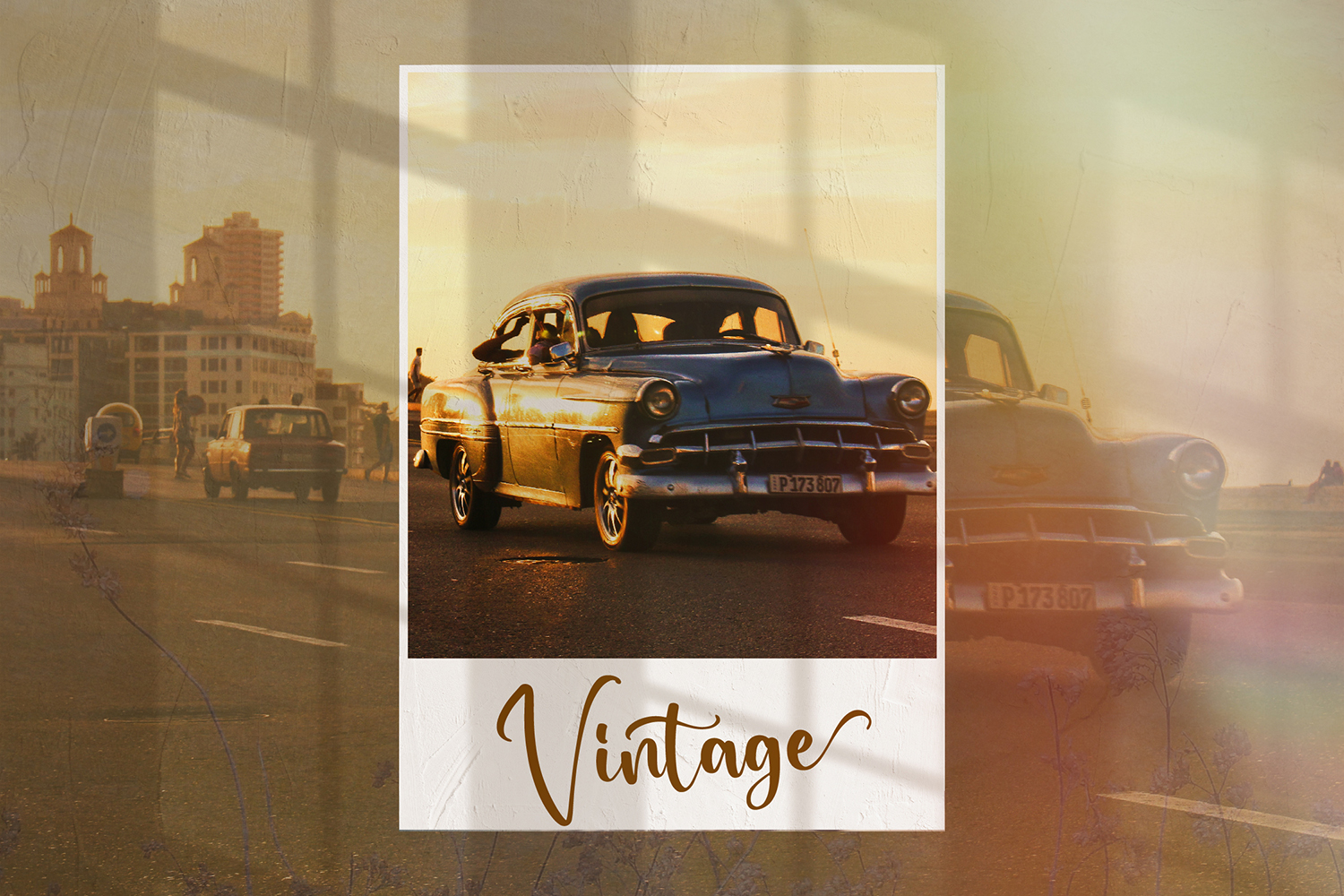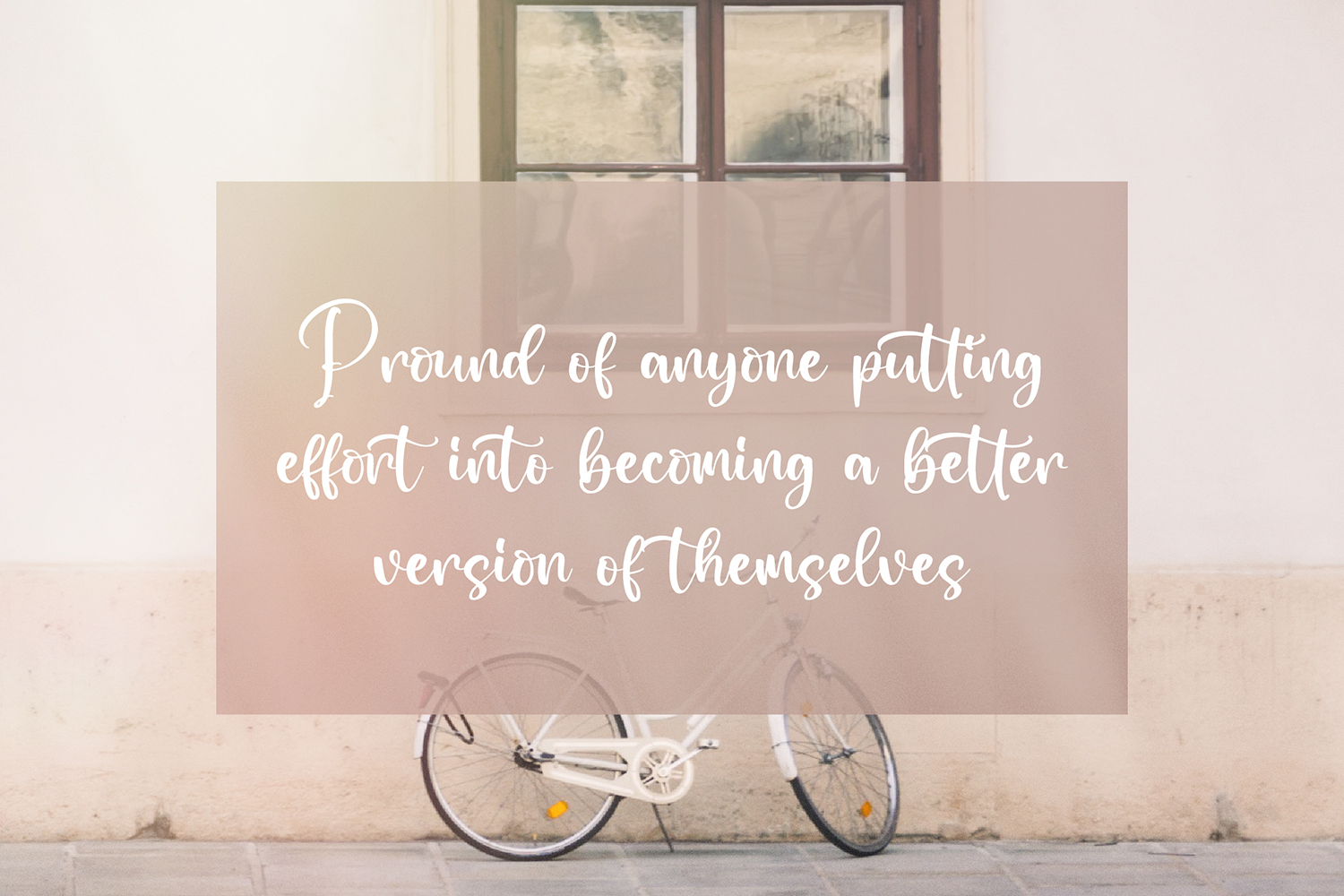
Bucket Honey Free Font
Bucket Honey Free Font is a trendy and chic script font. This free typeface was designed by a talented Glorytype Studio. If you like it don’t forget to check out the full version.